16 Fonts Similar to Bauhaus
TL;DR: Learn how Bauhaus typography evolved from a modernist design movement into a recognizable typographic style, which modern fonts capture the Bauhaus look, and when to use them effectively in contemporary design.
What is the Bauhaus font?
The Bauhaus font is not a single, original typeface but a typographic style rooted in the Bauhaus School of Design, founded in Germany in 1919. Rather than producing a definitive font, the school promoted a functional approach to letterforms based on geometry, simplicity, and clarity.
Bauhaus-style typography is defined by clean geometric construction, minimal ornamentation, and consistent strokes. Built from basic shapes such as circles and straight lines, these letterforms feel modern, structured, and highly readable, particularly at display sizes.
Today, designers use Bauhaus-inspired fonts for branding, logos, headlines, and digital interfaces where strong hierarchy and visual impact matter most. In 2026, this visual language continues to influence typography, branding, and digital design. nearly a century after its origins.
The origins of Bauhaus typography
Bauhaus typography began as an experimental idea, not a commercial font.
In 1925, designer Herbert Bayer developed the concept of the Universal typeface while teaching at the Bauhaus school in Germany. His unicase alphabet removed traditional distinctions between uppercase and lowercase letters, favoring pure geometry and functional clarity. Although Universal was never released as a finished font, it became a defining visual expression of Bauhaus design principles.
From concept to commercial type
Bauhaus ideas entered commercial typography decades later.
In the late 1960s and early 1970s, designer Joe Taylor created a typeface inspired by Bayer’s work for the Fotostar foundry. This interpretation introduced uppercase characters and more conventional proportions while preserving the geometric spirit of the original concept.
The design was later refined by Ed Benguiat and Victor Caruso at the International Typeface Corporation (ITC), resulting in ITC Bauhaus—a professional, multi-weight type family that helped popularize the Bauhaus look in modern graphic design.
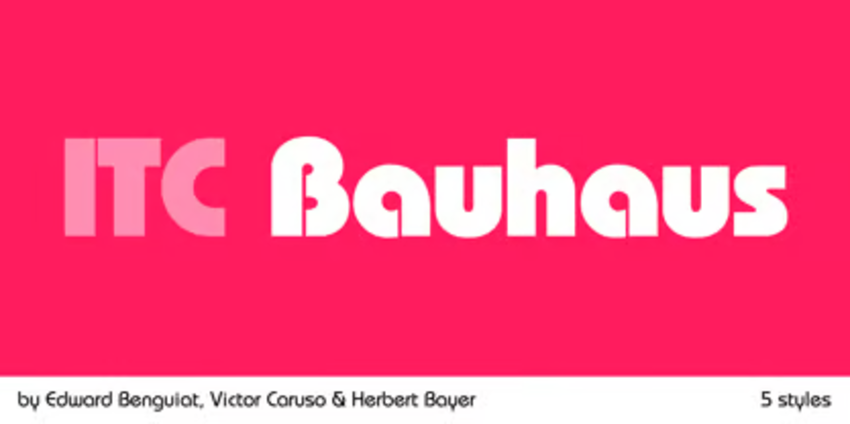
Bauhaus in the digital era
The Bauhaus aesthetic became widely recognizable in the 1990s.
A simplified digital typeface known as Bauhaus 93 spread through desktop publishing software and operating systems. While not historically connected to the Bauhaus school, its accessibility helped establish Bauhaus-style typography as a familiar visual language rather than a single historical font.
In 2026, Bauhaus-style fonts are usually used in web or print design projects, especially for logos, visual identities, and headlines that aim to feel bold, structured, and timeless.
16 high-quality fonts similar to Bauhaus
1. Redtone
Redtone is a contemporary geometric sans-serif font that interprets Bauhaus principles through precision and flexibility rather than nostalgia. Instead of leaning heavily into retro forms, it uses near-perfect circular shapes and carefully controlled proportions to create a system that feels modern and adaptable.
Best fit if you’re designing for…
Clarity, structure, and strong on-screen legibility in digital-first design work, especially in:
- Tech and SaaS branding, UI systems, apps, and digital products where readability and hierarchy are essential
- Minimal or premium brands and packaging built around clean layouts and confident headlines
- Architecture and interior design projects that rely on structured visual systems and editorial polish
- Editorial and digital layouts, such as online magazines, lookbooks, and portfolios, with a clear hierarchy
- Podcast covers and album artwork where typography needs to remain clear at smaller sizes
- Lifestyle, streetwear, and urban brands that need a sharp, modern look without losing edge
2. Bergen Sans
Bergen Sans is a clean, geometric sans-serif that draws on Bauhaus principles while leaning into a more expressive, contemporary tone. Built on circular forms and consistent stroke widths, it balances functional clarity with a bolder visual presence, making it feel confident without slipping into retro pastiche.
Best fit if you’re designing for…
Visual impact, bold presence, and expressive typography, particularly for:
- High-impact advertising and bold messaging, such as social media campaigns, posters, and digital ads, where type needs to stop the scroll quickly
- Streetwear and urban fashion branding, including logos, packaging, and fashion websites that aim to feel modern, confident, and unapologetically bold
Although it is often preinstalled on some systems or widely distributed online, its usage rights depend on the license under which it was obtained. Designers should always check the font’s licensing terms before using Bauhaus 93 in commercial projects.
Is Bauhaus good for body text?
Bauhaus-style fonts are better suited for headlines than long body text.
Their geometric forms work best at larger sizes, so designers often pair them with neutral sans-serif fonts such as Montserrat, Helvetica, or Open Sans for body copy.